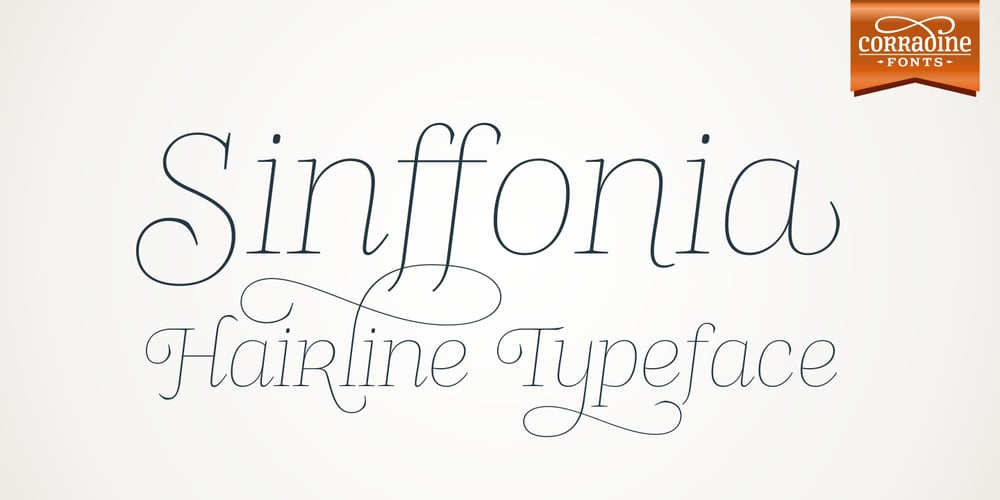
Sinffonia
Sinffonia font
Sinffonia Font Family was designed by Manuel Eduardo Corradine and published by Corradine Fonts. Sinffonia contains 4 styles and family package options. Sinffonia is a beautiful ornamental font family. Its thin weight and roman style makes very elegant and ideal for any high quality project. The Open Type version, plenty of ligatures, alternative Characters and ornamental characters, is carefully programmed to replace automatically the glyphs accord to the feature and context so you can modify the aspect of the text easily without any incoherence in the design (i.e. overlaps and collisions). Non Open Type users can try the four plain versions of Sinffonia, which includes some of the beautiful ornamental characters of the OT version.